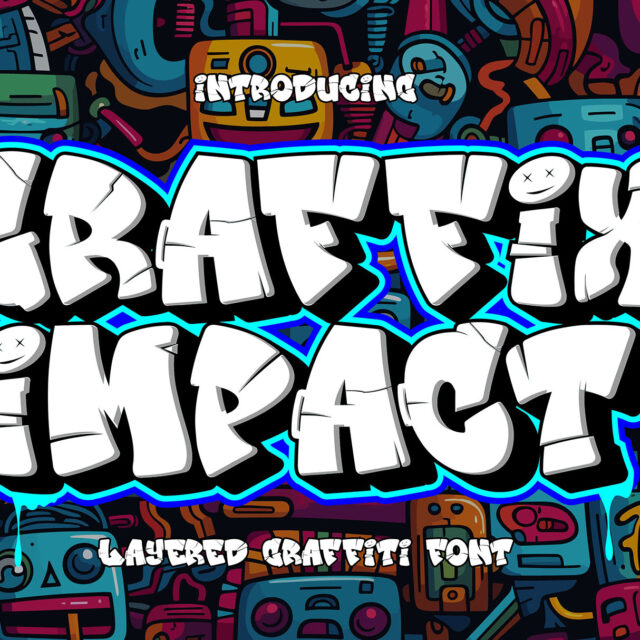
About Graffix Impact
“Graffix Impact” is a 3D layered graffiti font that includes a break or interruption within the characters. Fonts like this offer a three-dimensional appearance by employing multiple layers to create depth and dimensionality. The “break” in characters can introduce a stylistic element, enhancing the overall visual impact.
Utilizing “Graffix Impact” enables you to incorporate a unique and visually striking text style with a three-dimensional effect and character breaks. This font is suitable for various design applications, especially those seeking a bold and dynamic typographic look, such as in graffiti art, posters, or designs where a visually captivating text is required.
- Versatile for branding, headline, or printing product